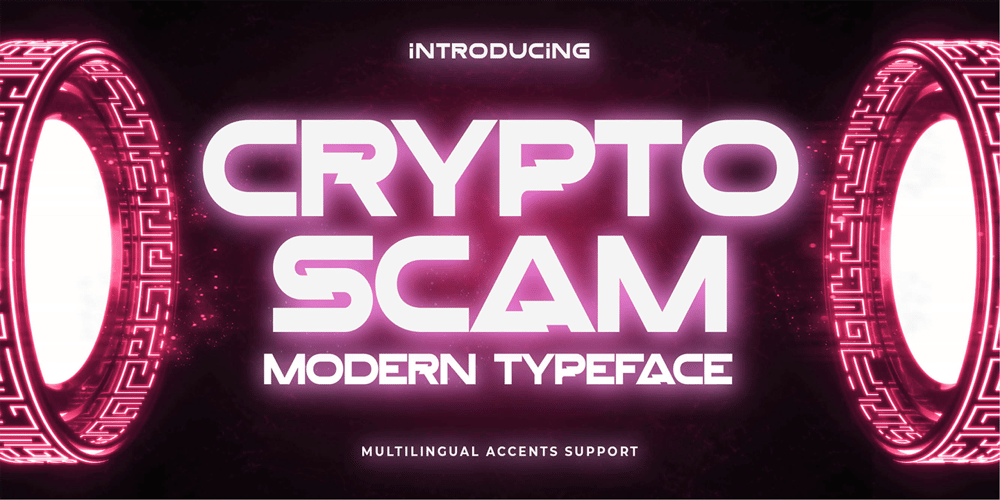
Crypto Scam
Crypto Scam font
Crypto Scam Font Family was designed by Abdul Malik Wisnu, Anang Fibriyanto and published by Gassstype. Crypto Scam contains 1 styles and family package options. Here comes a New Font,Introducing Crypto Scam is Modern Typeface with a Textured inspired by the famous minimalist logo and Blocking has 2 Regular and Stencil styles is perfect for the purposes of designing templates, brochures, videos, advertising branding, logos and more.